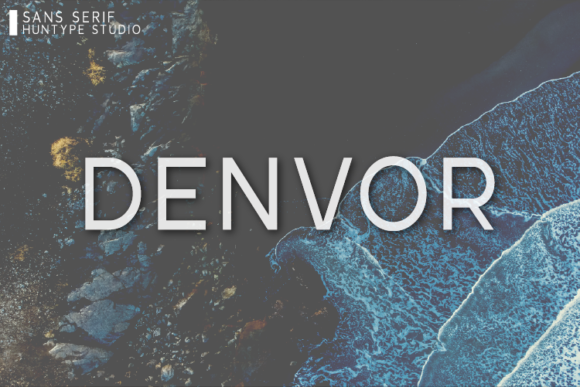
Introduction to Denvor Font
Denvor is a clean and simple lettered sans serif font.
Denvor Font offers exceptional quality and versatility, making it a valuable addition to your design toolkit. Whether you’re creating for personal projects or commercial use, Denvor Font delivers professional results.